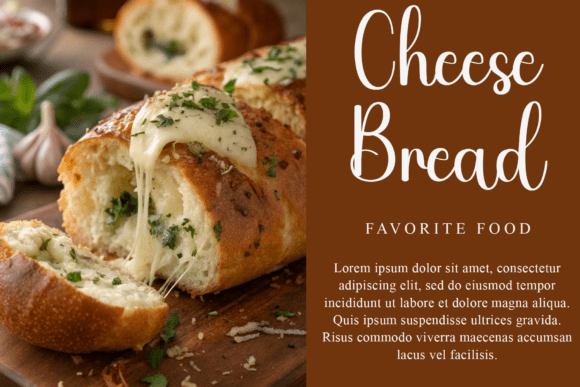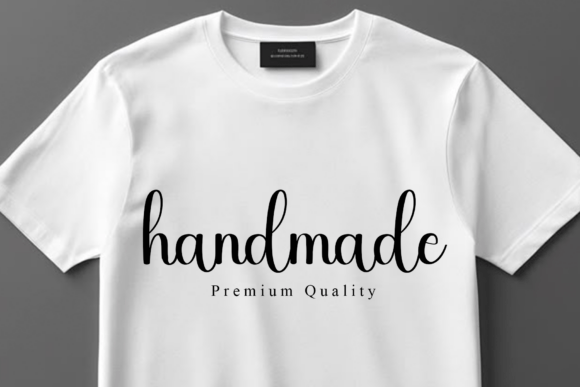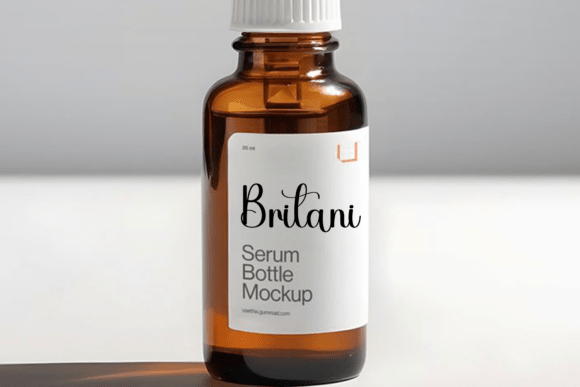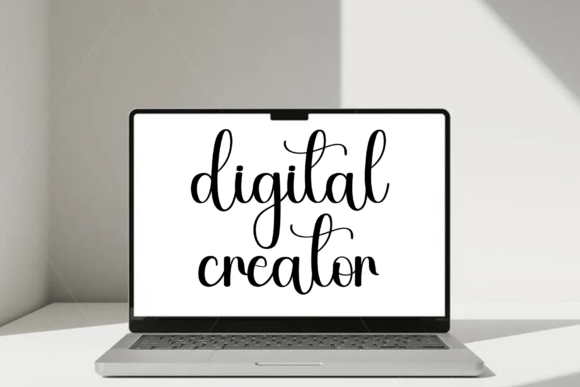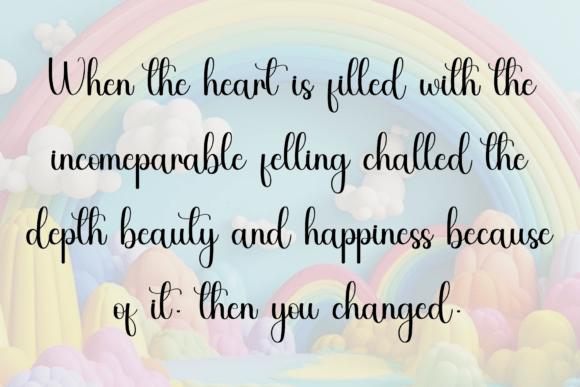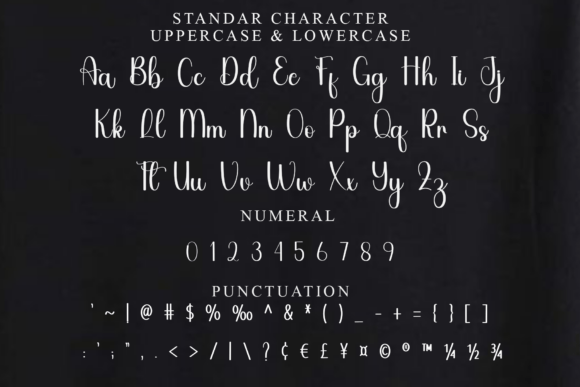
The Beauty of Calligraphy Font: Adding a Personal Touch to Your Designs
Calligraphy is a timeless art form that has been used for centuries to add a touch of elegance and sophistication to written communication. In the world of digital design, calligraphy fonts have become increasingly popular for their unique ability to convey warmth, friendliness, and approachability. One such font that has gained significant attention in recent years is the Calligraphy Font, a casual and creative typeface that is perfect for personal projects, invitations, and social media graphics.
The Characteristics of Calligraphy Font
The Calligraphy Font is distinguished by its round, playful strokes that create a relaxed and approachable feel. This font is designed to mimic the look of hand-drawn calligraphy, with a charming and whimsical aesthetic that adds a fun and unique touch to any design. The font’s casual and creative vibe makes it an excellent choice for designers and crafters looking to add a personal touch to their work.
Perfect for Personal Projects and Invitations
The Calligraphy Font is particularly well-suited for personal projects, such as wedding invitations, greeting cards, and social media graphics. Its friendly and approachable feel makes it an excellent choice for communicating with friends, family, and loved ones. Whether you’re designing a custom wedding invitation or a social media post, the Calligraphy Font is sure to add a touch of warmth and personality to your design.
Technical Features of Calligraphy Font
Adding a Unique Touch to Your Designs
One of the key benefits of the Calligraphy Font is its ability to add a unique and creative touch to any design. The font’s hand-drawn aesthetic gives it a distinctive look that sets it apart from more traditional fonts. Whether you’re designing a logo, a brochure, or a social media post, the Calligraphy Font is sure to add a touch of personality and whimsy to your design.
Tips for Using Calligraphy Font in Your Designs
- Use it for headings and titles: The Calligraphy Font is perfect for headings and titles, where its playful and creative vibe can really shine.
- Pair it with other fonts: The Calligraphy Font pairs well with a wide range of other fonts, including serif and sans-serif fonts. Experiment with different pairings to find the one that works best for your design.
- Experiment with colors and textures: The Calligraphy Font looks great in a variety of colors and textures. Don’t be afraid to experiment and find the combination that works best for your design.
The Calligraphy Font is a versatile and creative typeface that is perfect for designers and crafters looking to add a personal touch to their work. Its unique blend of warmth, friendliness, and approachability makes it an excellent choice for personal projects, invitations, and social media graphics. With its standard PUA Encoded glyphs and compatibility with a wide range of design applications, the Calligraphy Font is a great addition to any designer’s toolkit.